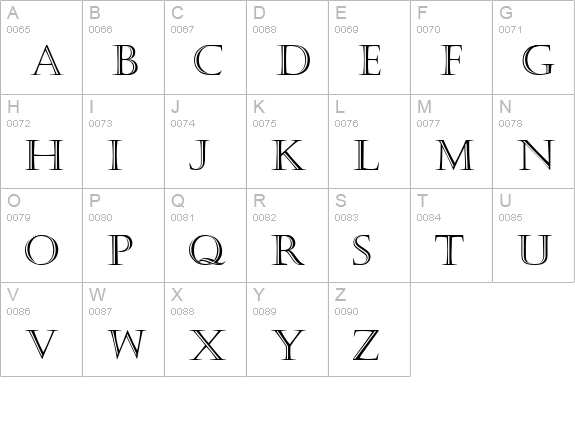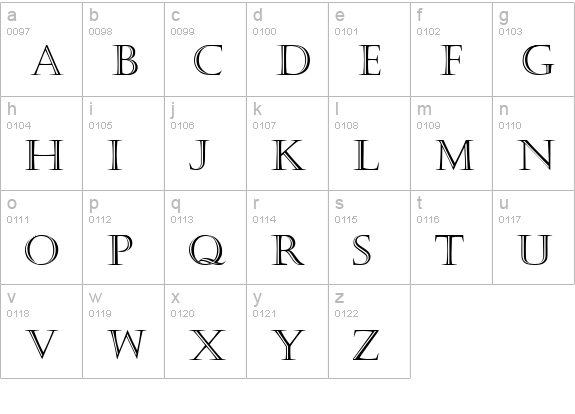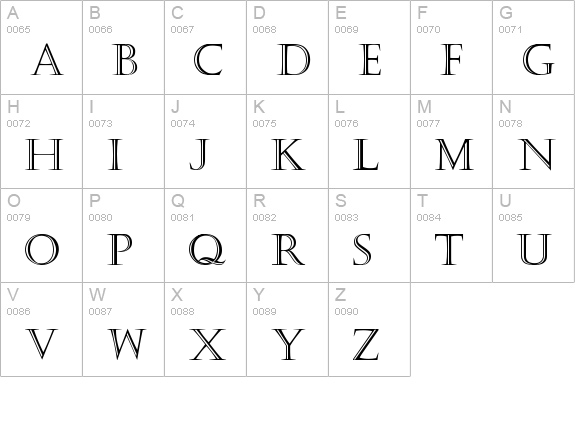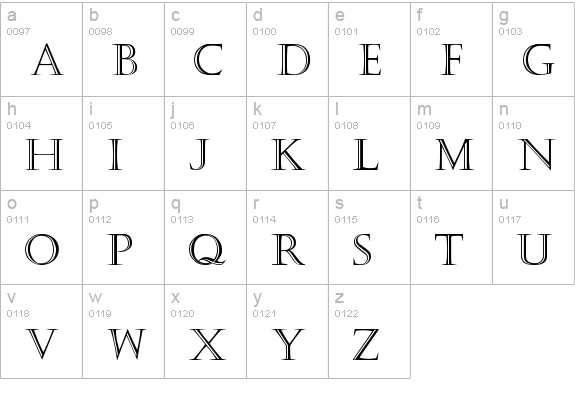
Kastellar Regular is the standard, neutral variant in the Kastellar typeface family \xE2\x80\x94 well suited to general body text, paragraphs, and standard typographic work.
Kastellar Regular is a versatile and elegant typeface that exudes sophistication and class. With its clean lines and balanced letterforms, this font is perfect for a wide range of design projects, from print materials to digital applications. The timeless appeal of Kastellar Regular lies in its simplicity and readability. The letters are carefully crafted to ensure legibility at any size, making it ideal for both headlines and body text. The smooth curves and precise edges give the font a polished and professional look, while still maintaining a touch of personality. One of the best aspects of Kastellar Regular is that it is free to download. You can easily access this stunning font at FontsMarket.com, where it is available for both personal and commercial use. Whether you're a designer working on a client project or an individual looking to enhance your own creations, this font will be a valuable addition to your toolkit. Kastellar Regular offers a wide range of characters, including uppercase and lowercase letters, numerals, punctuation marks, and special symbols. Its extensive character set ensures that you have everything you need to bring your vision to life. Whether you're designing a logo, creating a website, or crafting a brochure, Kastellar Regular will elevate your work to new heights. Its versatility and timeless appeal make it a must-have font for any designer or creative individual. Don't miss out on the opportunity to enhance your designs with Kastellar Regular. Download it for free today at FontsMarket.com and experience the beauty and functionality of this remarkable font.